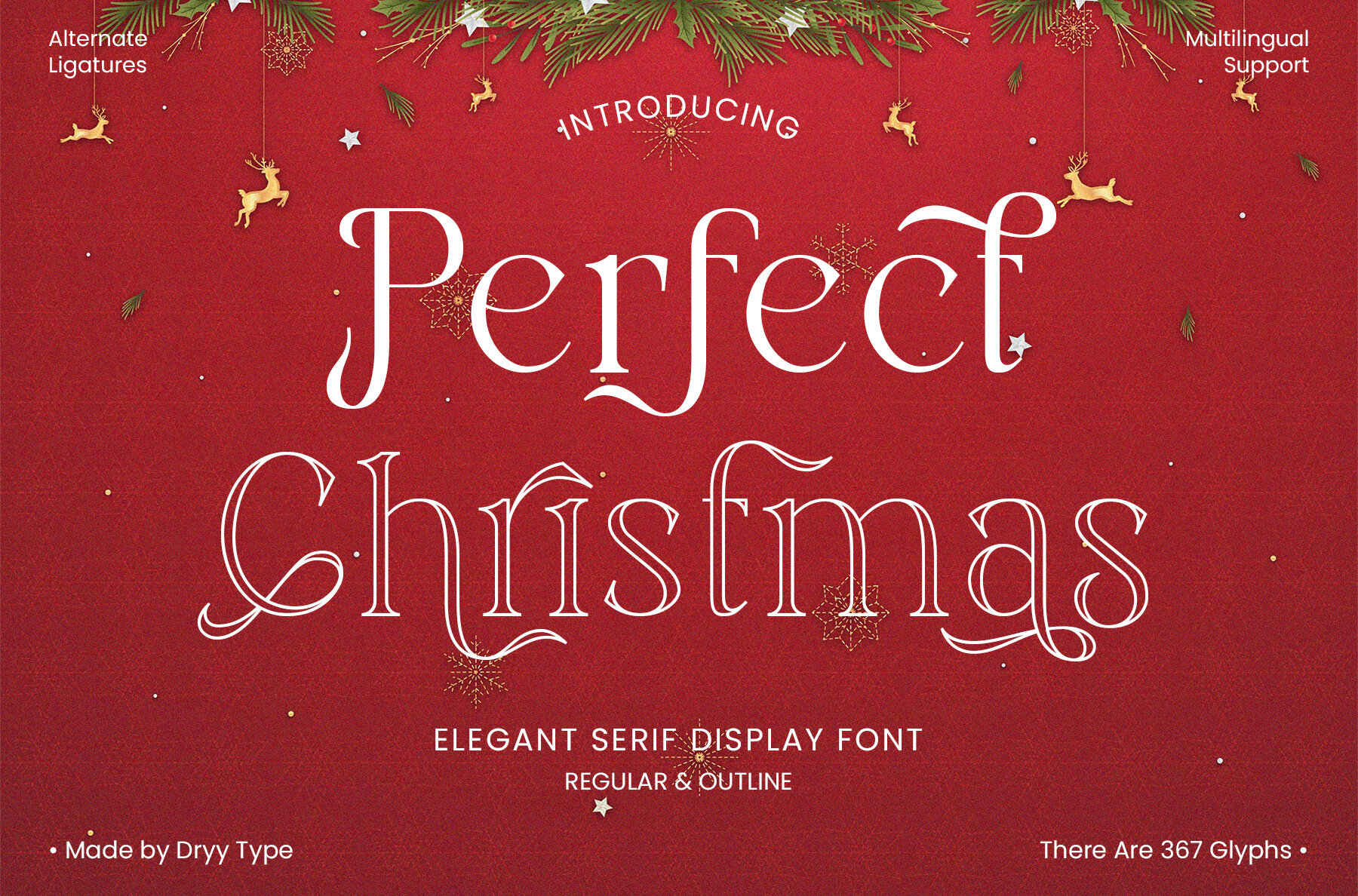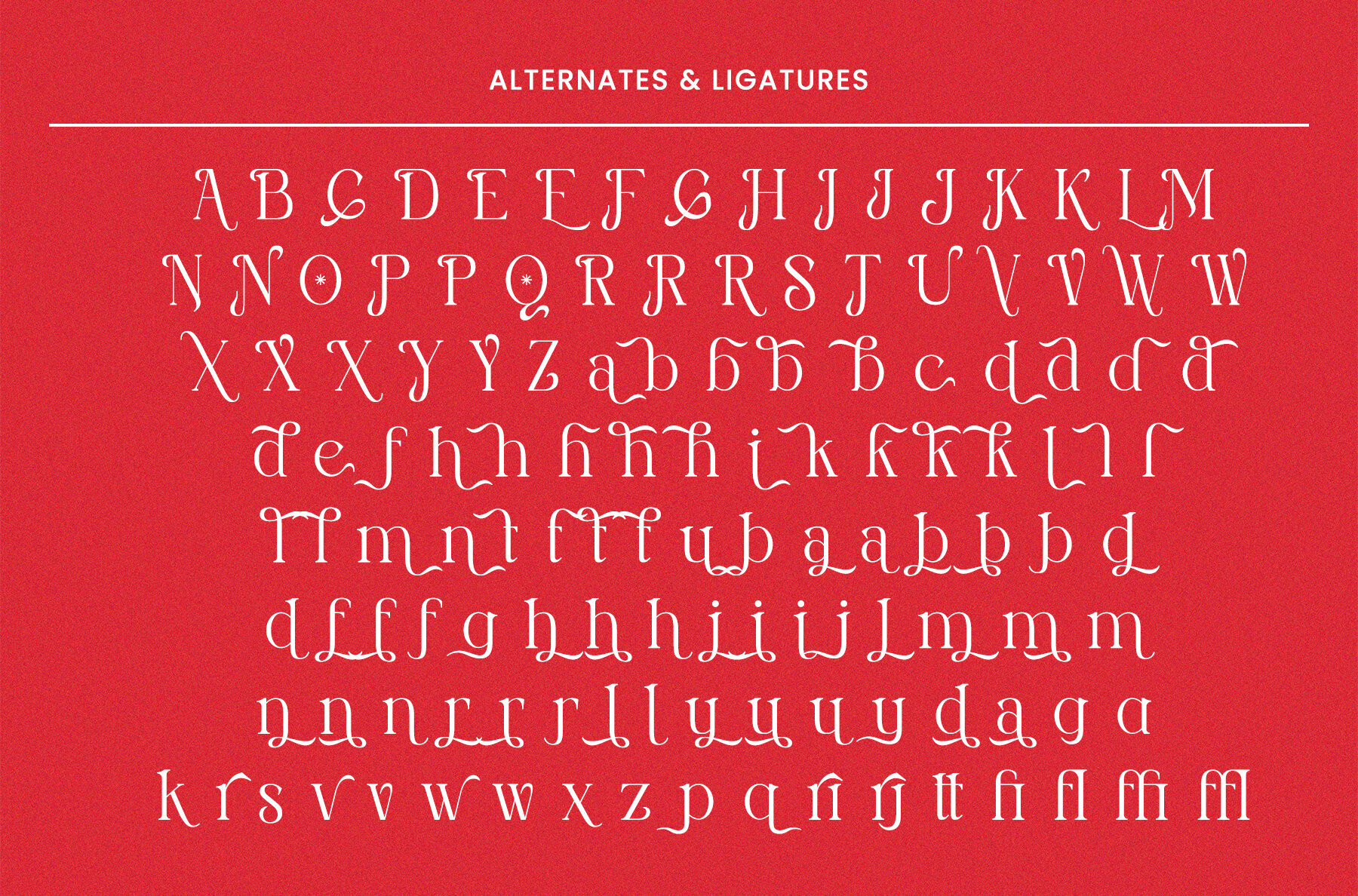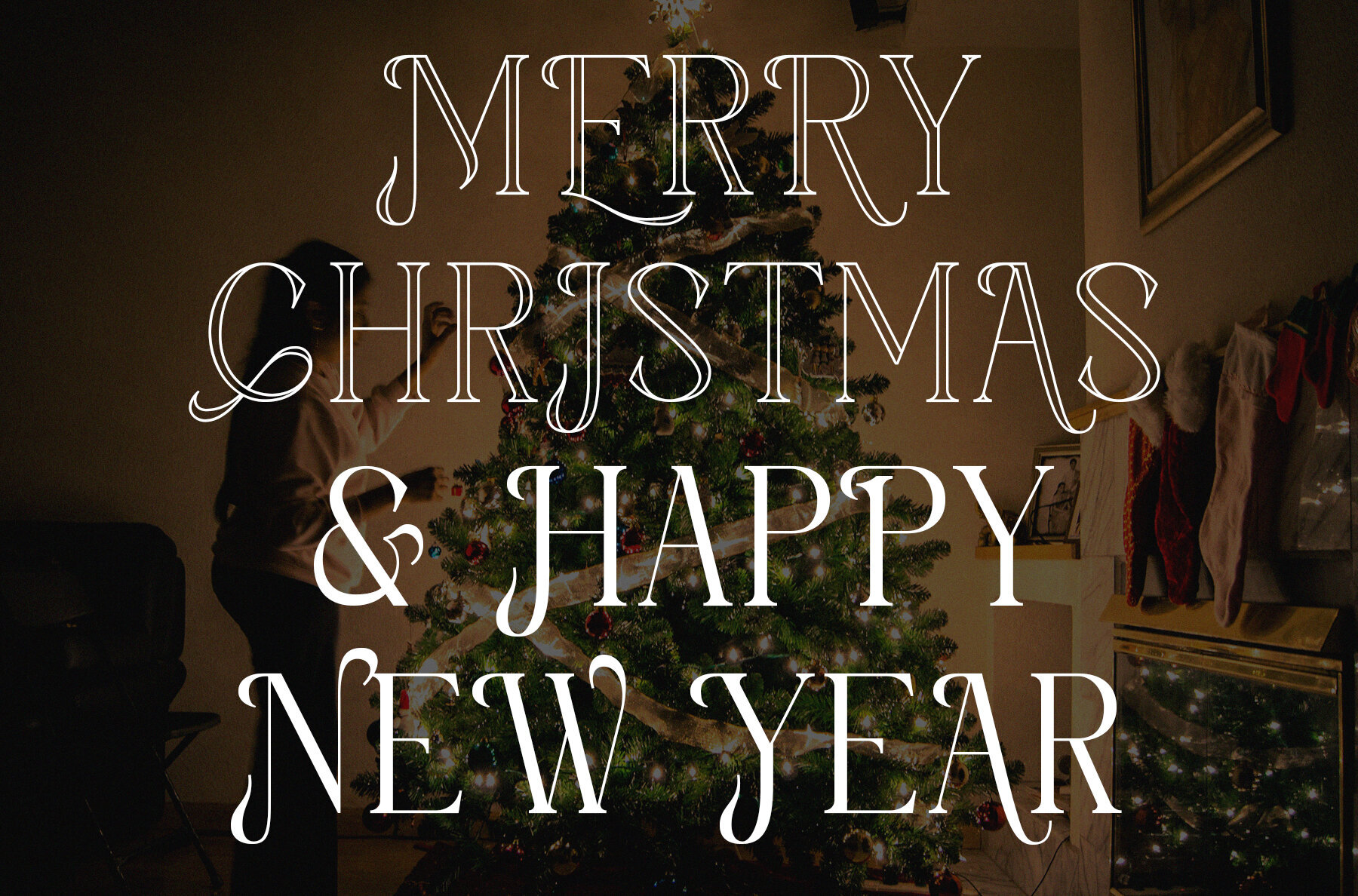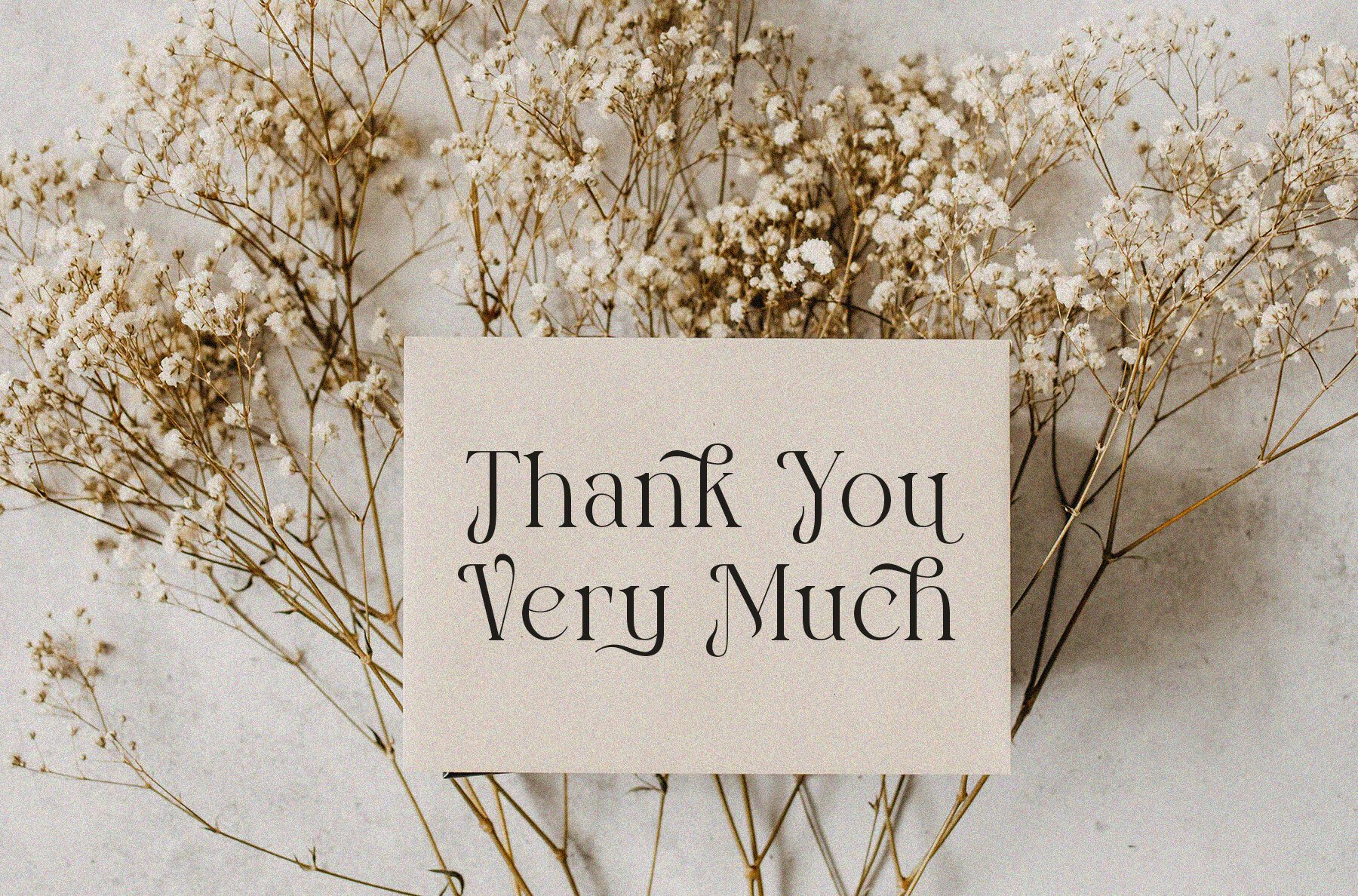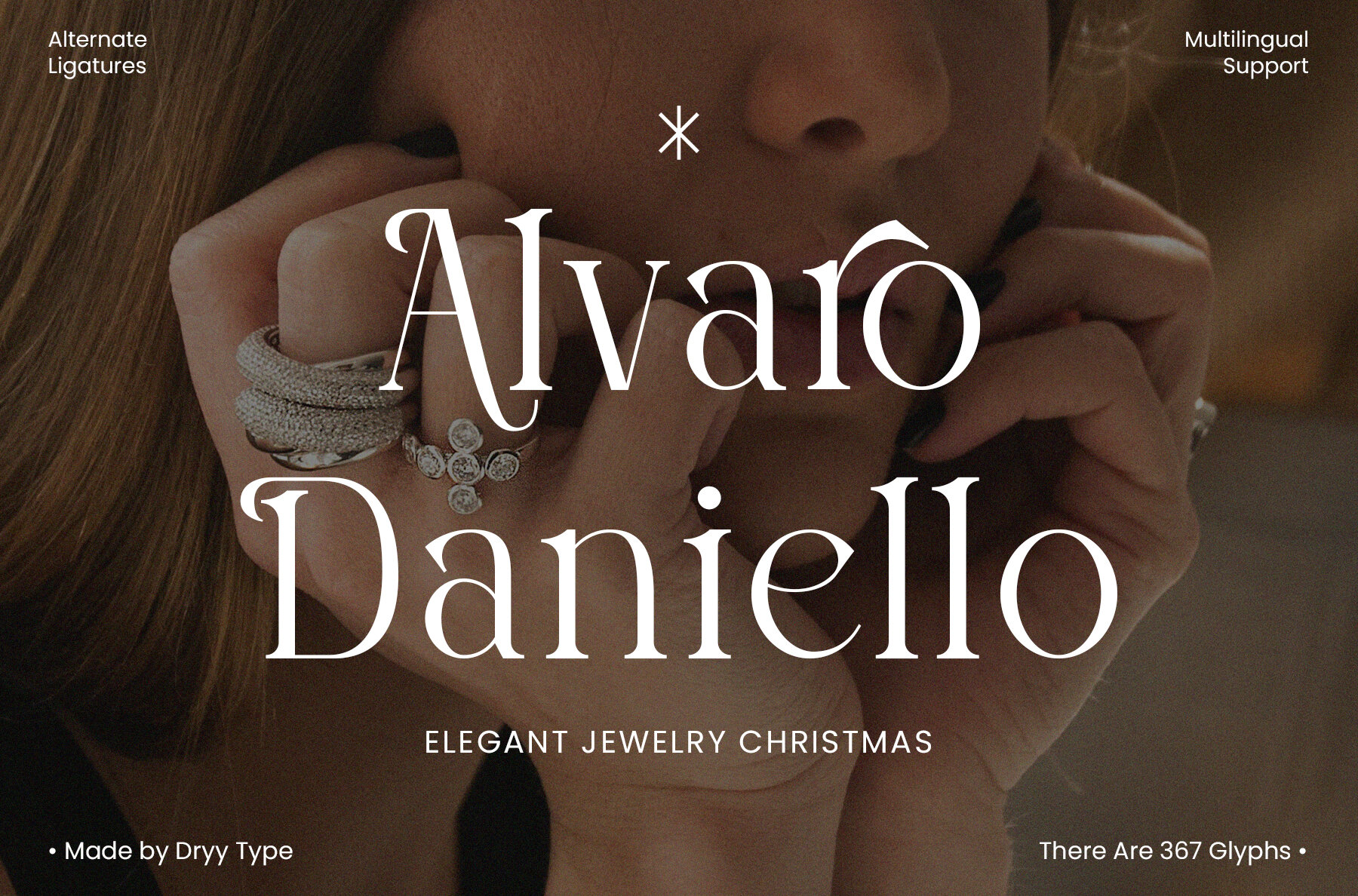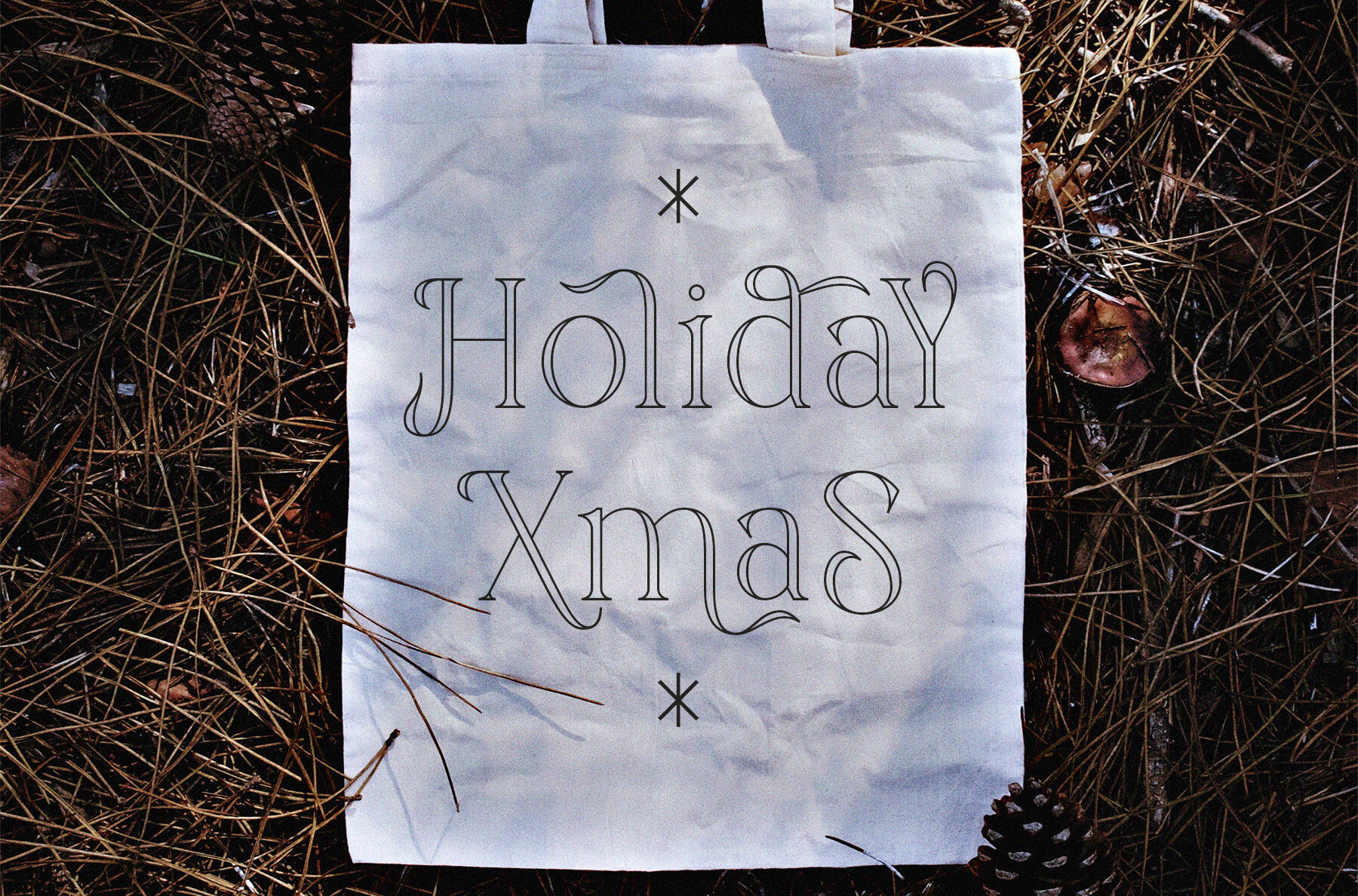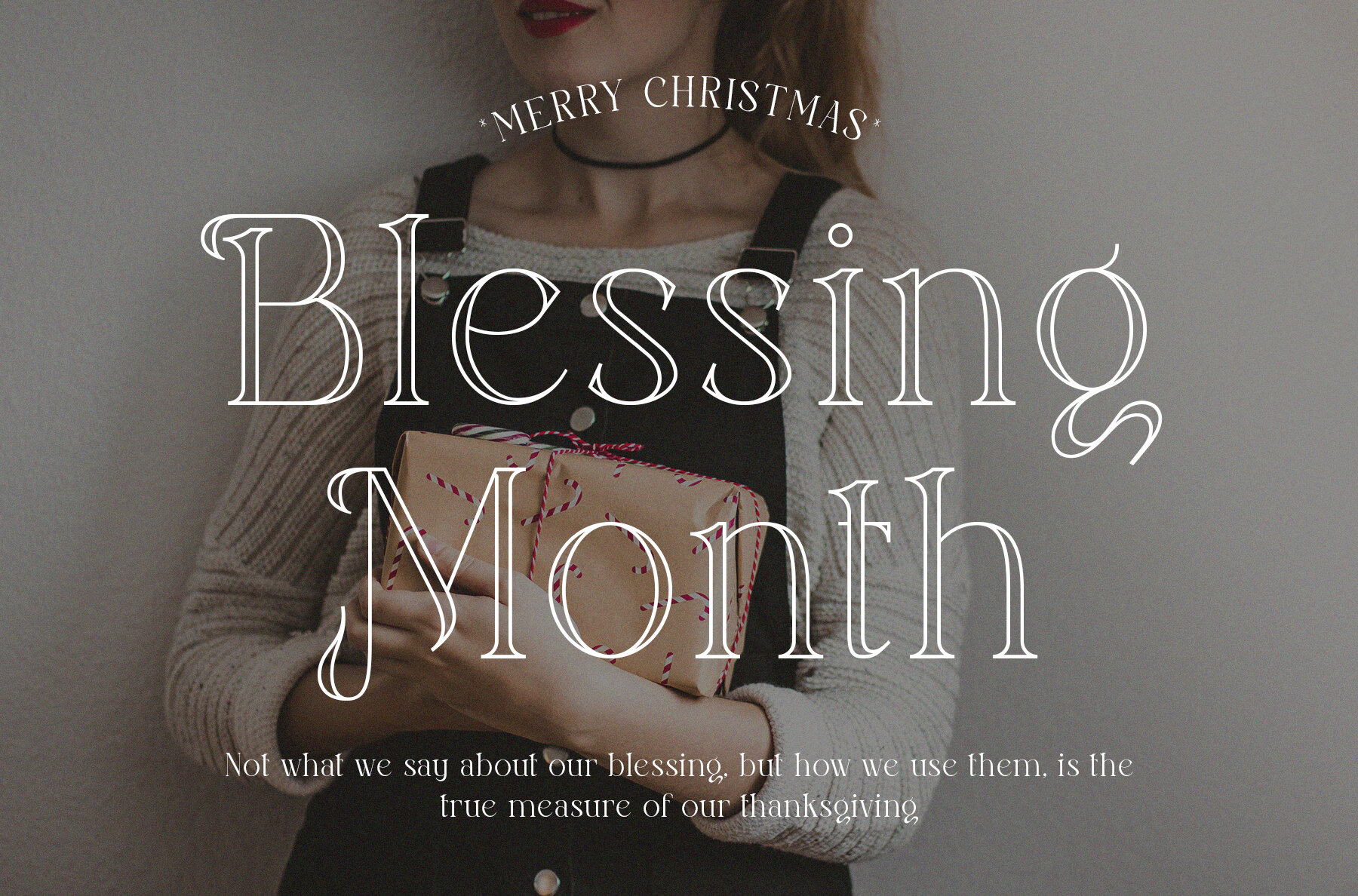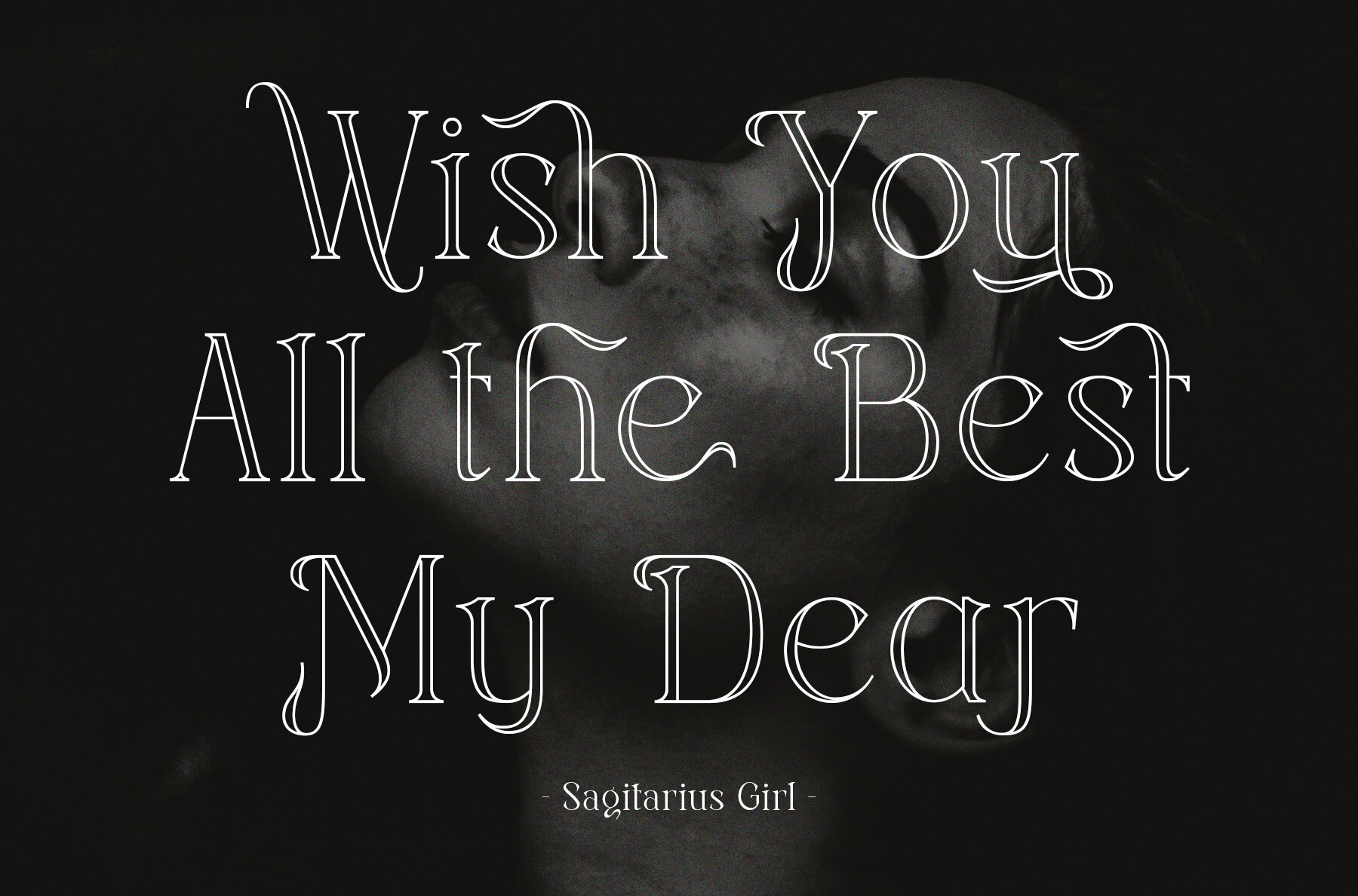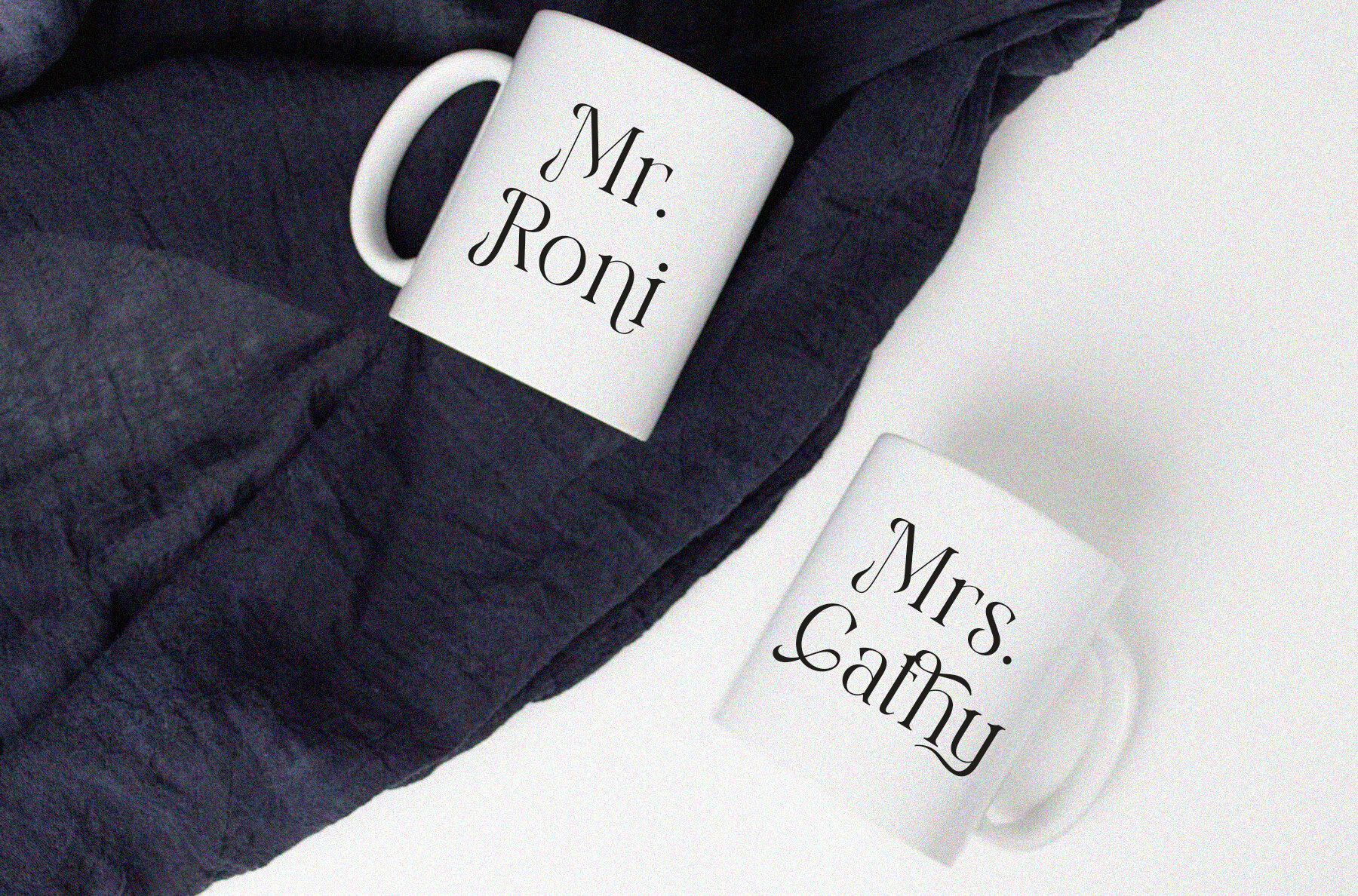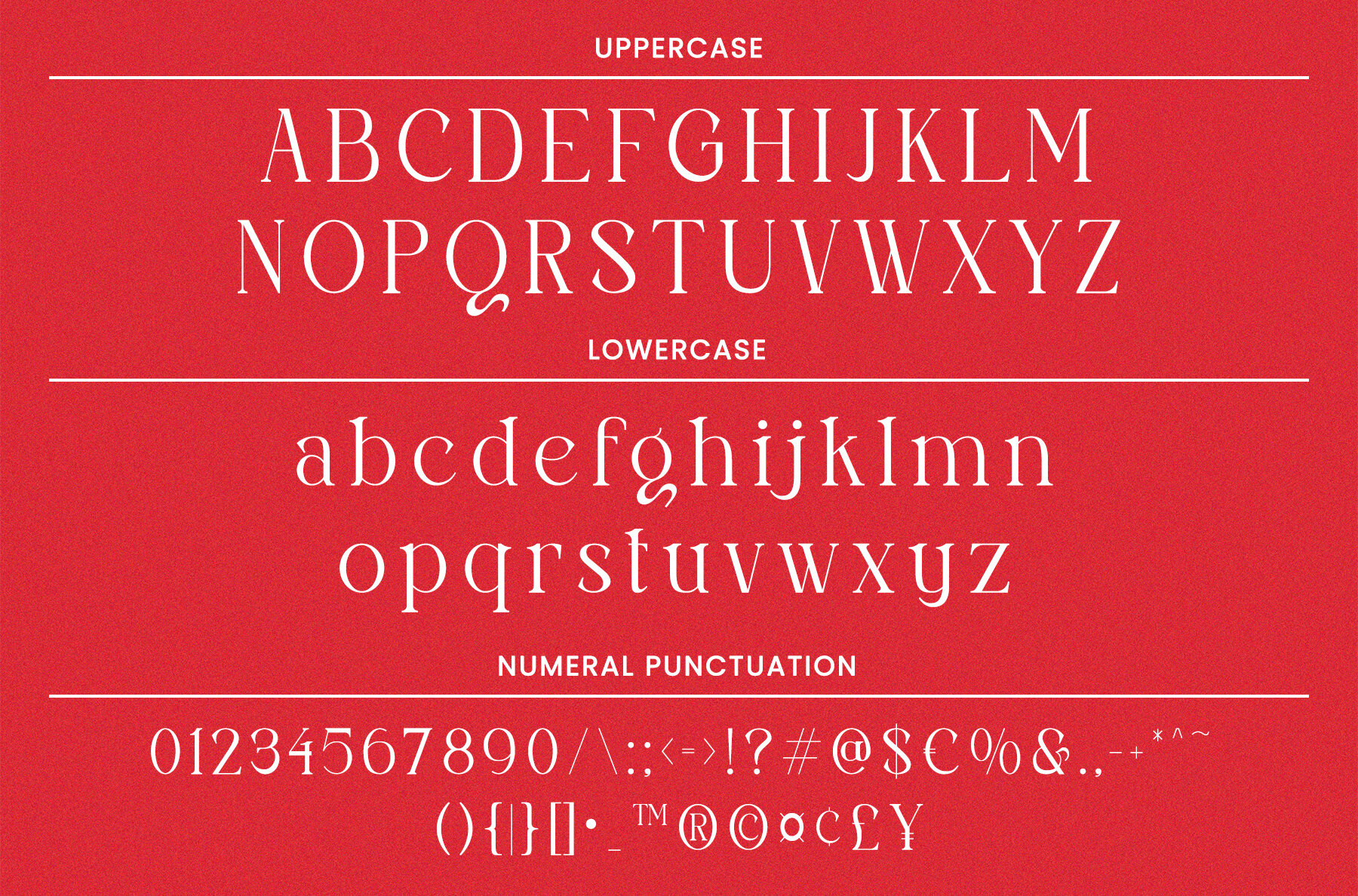
Perfect Christmas Font
Perfect Christmas is an elegant serif display font with a unique character perfect for the festive season. It offers a versatile design that seamlessly integrates with a variety of creative projects. This font is ideal for holiday cards, festive advertisements, and seasonal branding. Its classic yet distinctive style ensures your designs stand out.
This font includes a range of features such as uppercase and lowercase letters, numeral punctuation, alternates, ligatures, and multilingual support. Its comprehensive character set enhances its usability, making it a valuable addition to your design toolkit for adding a touch of sophistication and holiday spirit to your projects.